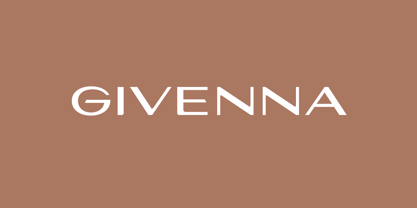
Givenna
by Serdar Ozturk
The Givenna Font Family was designed by Serdar Öztürk and published by Serdar Ozturk. Givenna contains 14 styles and family package options. More about this family
Balancing elegance and modern clarity, Givenna draws inspiration from classical letterforms while shedding traditional serifs to create a sleek, contemporary silhouette. The result is a typeface that feels both timeless and fresh—perfect for luxury branding, editorial design, and high-end packaging.
Each curve, stroke, and proportion is carefully crafted to echo the grace of serif typography, yet its clean finish lends a subtle modernity that elevates the overall tone. Givenna works beautifully in both large, expressive headlines and graceful body text, offering versatility with a distinctive voice.
Whether you're designing a boutique logo, an artful magazine spread, or a minimalist website, Givenna adds a quiet confidence and sophistication to your typography palette.